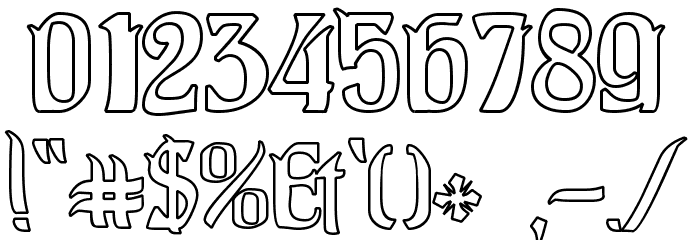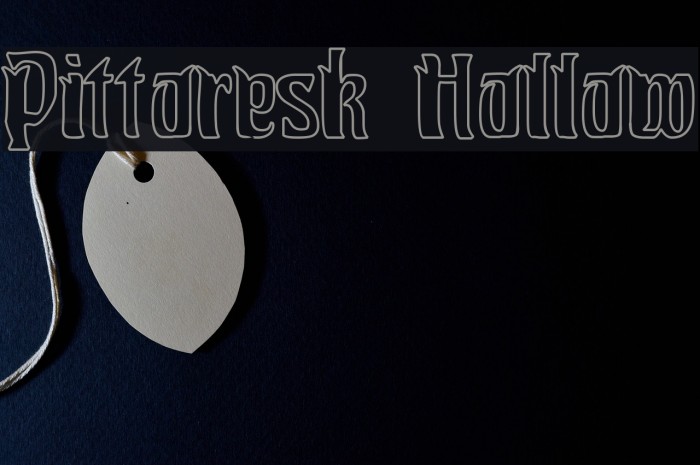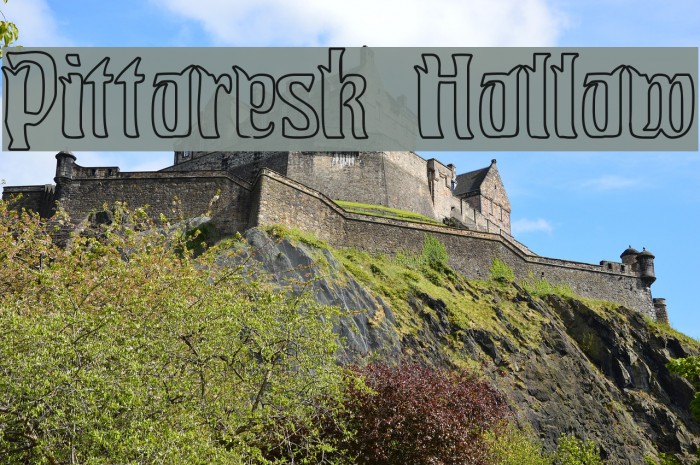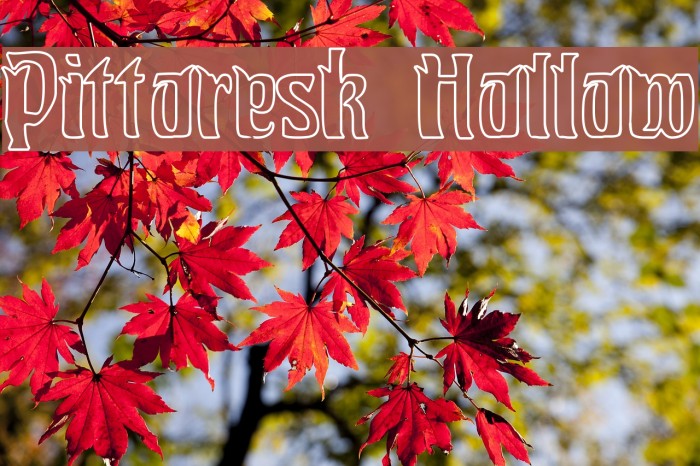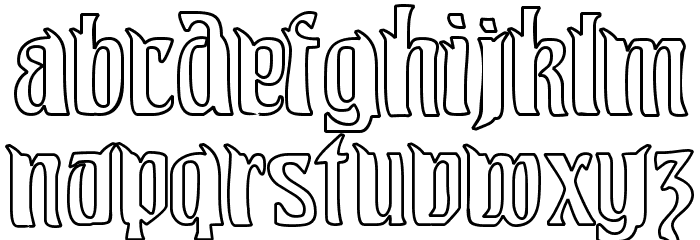
Pittoresk Hollow Font
This font features a unique hollow design with a decorative and artistic flair. The uppercase letters are bold and structured, with intricate curves and sharp edges that give them a striking appearance. The lowercase letters maintain the same hollow style, offering a consistent look across the alphabet. Numbers and special characters are designed with the same attention to detail, making them stand out with their bold outlines and artistic shapes. This font is perfect for projects that require a creative and eye-catching typeface.
A decorative hollow font with bold outlines and artistic flair.
• Proposed Projects: Ideal for posters, logos, branding, and creative design projects that require a standout typeface.
• Category: Decorative/Display
• Contrast: High
• Overall Style: Decorative
• Use Case: Logos, Headlines, Posters